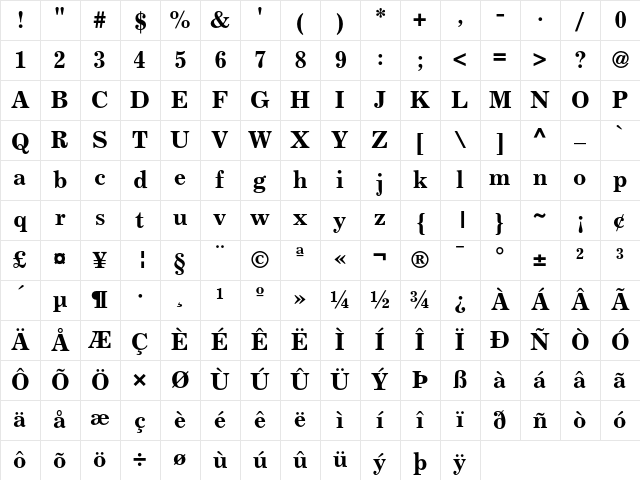
Excelsior Bold
Design Context for Excelsior
Excelsior is a composed and adaptable typeface that performs quietly and consistently across a wide range of design contexts. Its bold stroke weight gives it real presence on the page.
Pro Tip: Use Excelsior in both headline and body roles to test its range before committing to a single application.